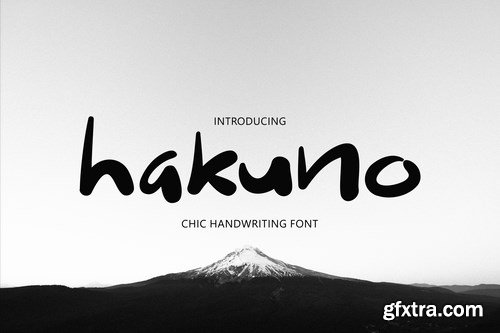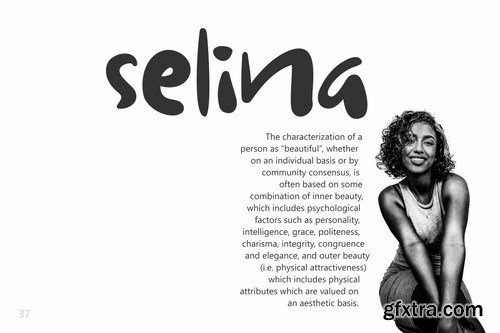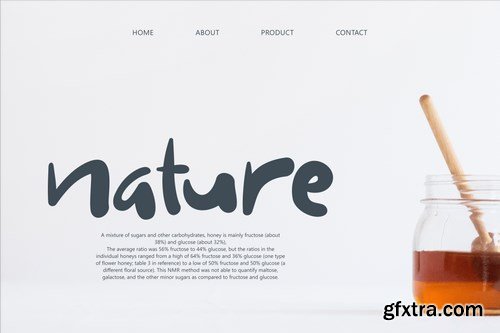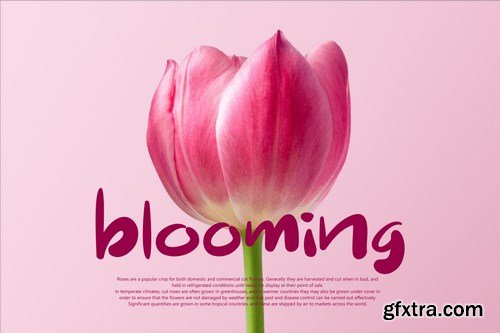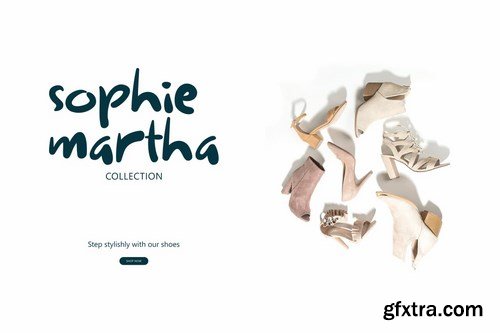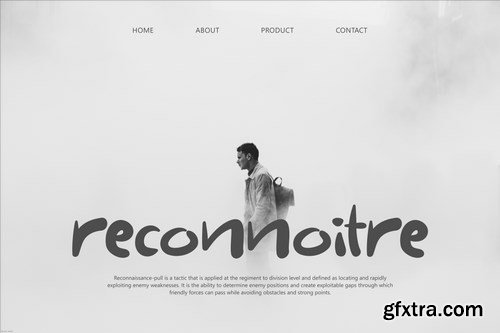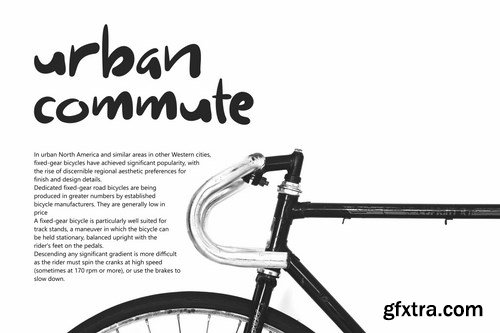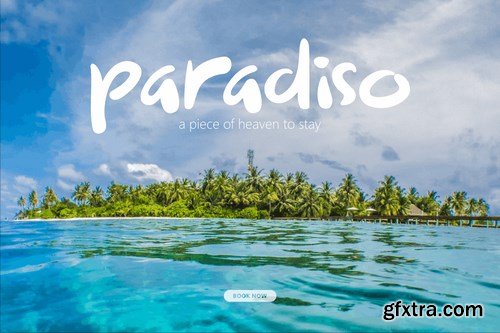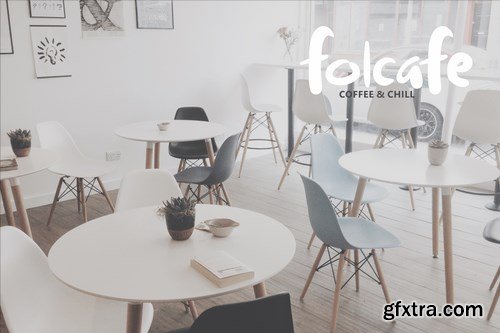
Hakuno - Chic Handwriting Font If you looking for a chic and casual handwriting font, look no further. hakuno is all you need. The font is suitable for poster, website, product names, branding, editorial, website header, and many more.